Free typewriter fonts are an essential resource for creatives looking to imbue their designs with a unique, nostalgic charm. These fonts, reminiscent of vintage typewriting machines, add character to a range of projects from posters to branding and invitations. Available for download, the best typewriter fonts boast distinctive styles that evoke memories of the past, featuring imperfections like ink blots and uneven letters that a traditional computer font simply can’t replicate. As you explore various typewriter font styles, you’re sure to find inspiration for your next creative endeavor. Elevate your designs with these captivating and creative fonts that celebrate the artistry of forgotten eras.
Introducing the world of free typewriter fonts opens a gateway to a style that resonates deeply with both history and creativity. Often associated with retro aesthetics, these vintage typewriter typefaces bring a distinct flair to modern designs, making them ideal for various artistic projects. Whether you’re searching for downloadable typewriter styles for personal use or professional endeavors, there’s a vast array of options that combine nostalgia with functionality. This collection is perfect for those eager to explore unique fonts that blend the old with the new, infusing contemporary projects with timeless elegance. Dive into these options and discover how these classic type designs can enhance your artistic vision.
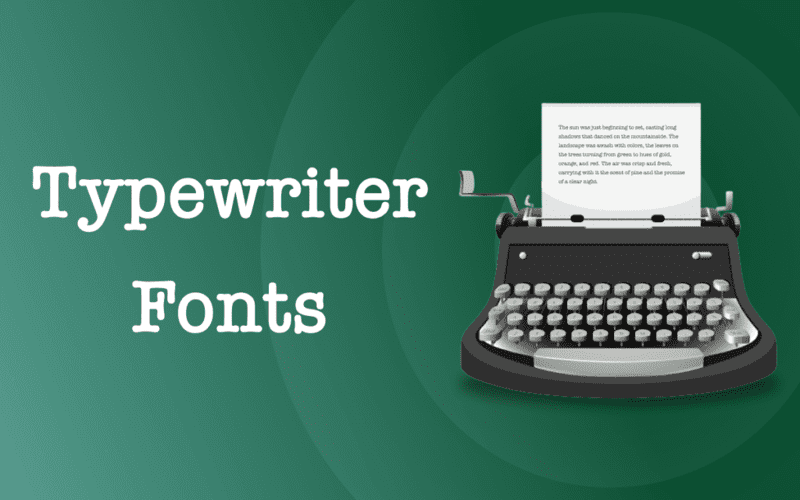
Introduction to Typewriter Fonts
Typewriter fonts are a nostalgic reminder of a bygone era, characterized by their unique styles, uneven ink application, and authentic imperfections that evoke the feeling of vintage typewriters. These fonts are perfect for creative projects needing a touch of history or a classic look, from posters to branding and invitations.
In recent years, the digital age has revived interest in these retro styles, leading to an explosion of free typewriter fonts available for designers. Whether you want a clean, crisp font or something with more character that harkens back to the days of typewritten letters, this collection promises to have something that fits your aesthetic.
The Charm of Vintage Style
What sets typewriter fonts apart is their ability to bring warmth and authenticity to any design. The subtle irregularities in letter forms and imperfections in ink distribution create a visual texture that simply can’t be replicated by modern digital fonts. This charm is especially appealing to creatives who wish to evoke a particular sense of nostalgia or vintage style in their work.
Moreover, these fonts encapsulate a sense of individuality and character that can make any project feel special and personal. Whether you’re crafting an invitation, designing a logo, or putting together a poster, the right typewriter font can make your message stand out in a meaningful way.
Diverse Selections of Free Fonts
The collection includes a wide range of free typewriter fonts, each with its own distinct personality. For instance, **Courier Prime** modernizes the classic font while maintaining readability, making it suitable for various text-heavy projects. On the other hand, **Dull Boy** features uneven spacing and varying letter shapes, which lend a vintage feel perfect for creative uses.
You’re also introduced to gems like **Royal Quiet Deluxe**, inspired by actual letters from a 1950s typewriter, and **Punk Typewriter**, with its bold imperfections that can add a rebellious flair to your designs. Each of these fonts is crafted to bring unique elements to your creative projects.
Once you’ve selected your fonts, incorporating them into your projects is where the fun begins. You can mix and match, combine different weights, or even layer them to create striking text effects that draw the eye and add character to any layout.
Practical Applications
Typewriter fonts shine in several contexts, such as poster design, where bold statements need to be conveyed with personality. They also work beautifully in branding, giving companies a vintage or artisanal feel that can help differentiate them in crowded markets.
Moreover, for photographers and artists, using typewriter fonts in captions or credits can add a casual and artistic touch to portfolios and presentations. The handwriting-like quality of some of these fonts can contribute to an intimate, personal style that resonates with viewers.
Final Thoughts on Typewriter Fonts
In conclusion, free typewriter fonts offer an incredible way to inject personality and history into your designs. Whether you’re aiming for something that feels polished or authentically worn, you’re sure to find a font that matches your vision.
As design continues to evolve, the love for vintage typewriter fonts remains strong, reminding us that great design can often come with a story to tell. So, don’t hesitate to explore these options and infuse your projects with a classic touch.
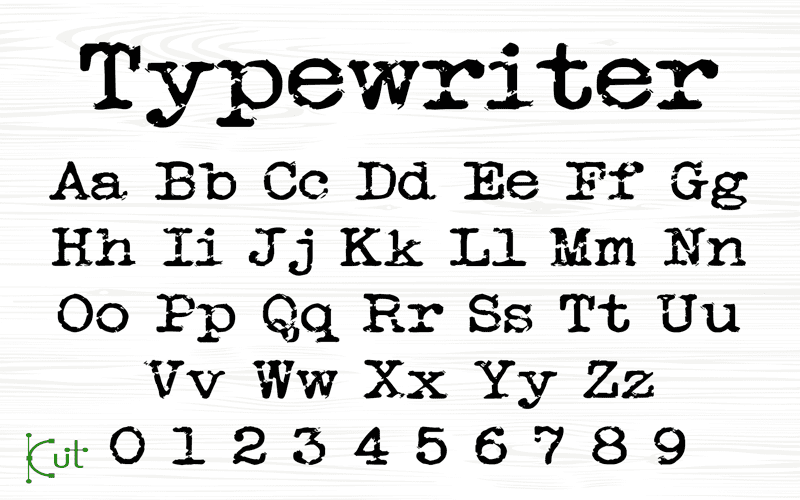
In conclusion, the curated collection of 15+ free typewriter fonts offers a diverse range of styles perfect for adding a vintage touch to any creative project. Whether you’re designing posters, branding materials, or wedding invitations, these typewriter fonts capture the essence of classic typewriting while remaining accessible for modern designers. Here are the key takeaways:
– **Digital and Analog Inspiration**: Many fonts are inspired by classic typewriters or scanned from real typewritten letters, ensuring authenticity in every stroke.
– **Versatility**: The fonts range from bold and dramatic to soft and subtle, catering to various applications from graphic design to web design.
– **Continued Relevance**: Despite the evolution of digital typography, typewriter fonts remain a timeless choice, appealing to those looking to add character to their work.